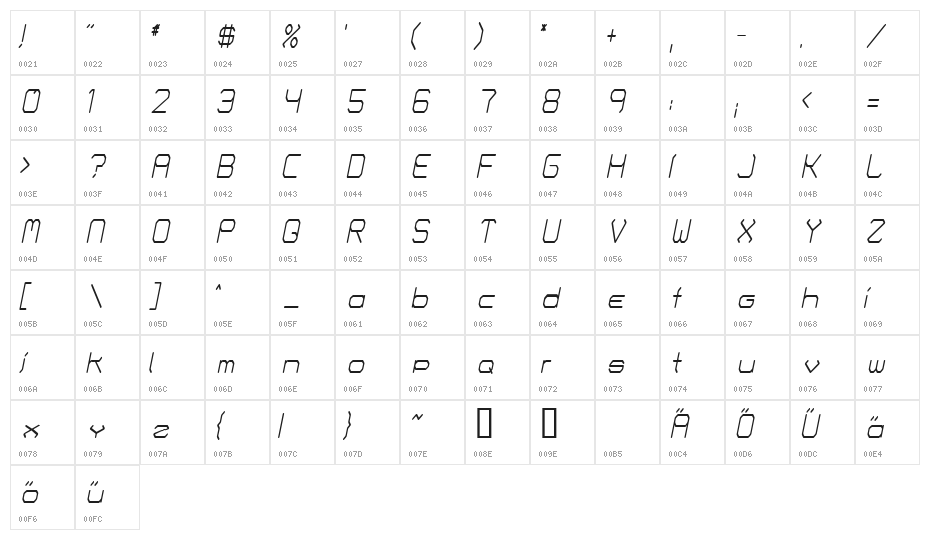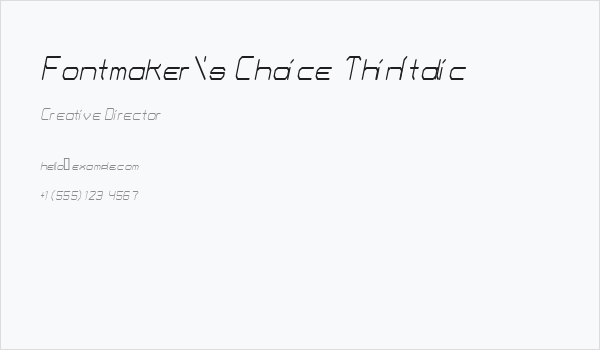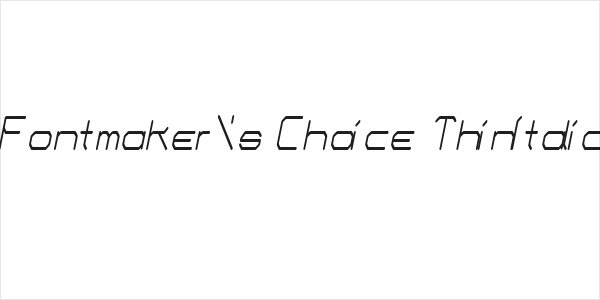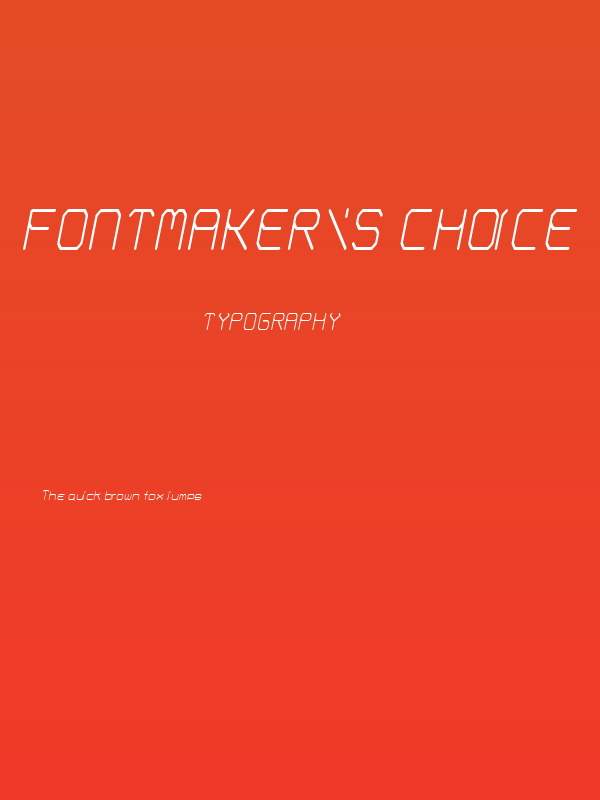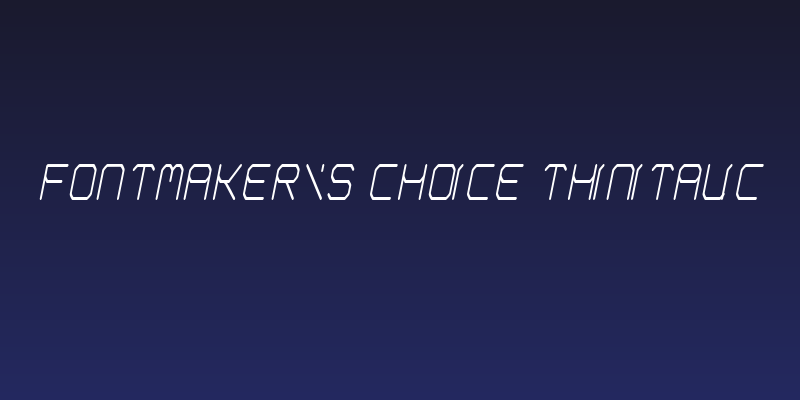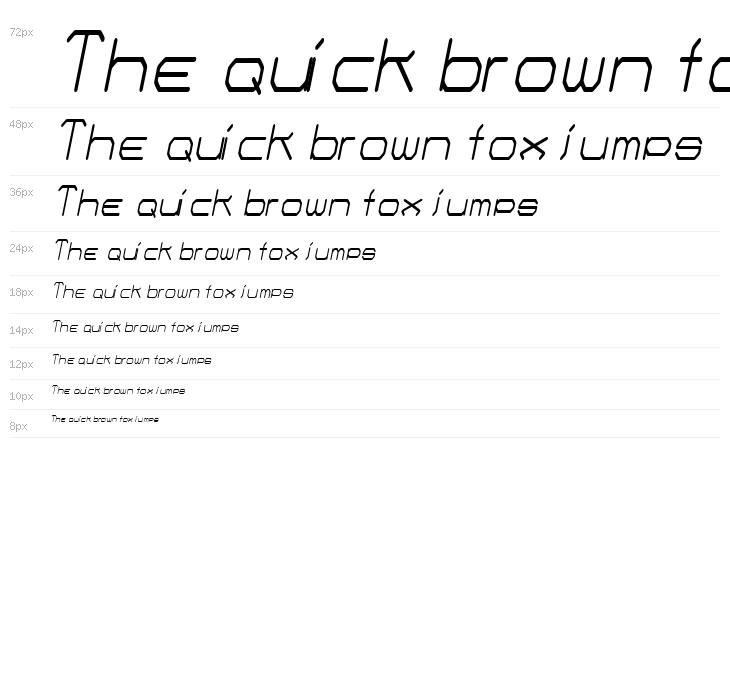
Fontmaker's Choice ThinItalic Font
Fontmaker's Choice ThinItalic Description
This font features a sleek, modern design with a thin and italicized style. The characters are slightly slanted, giving a sense of motion and elegance. The geometric shapes and clean lines create a futuristic and technical appearance. Uppercase and lowercase letters maintain a consistent style, with rounded edges and open counters that enhance readability. The numerals are distinct and align well with the overall aesthetic. Special characters are included, maintaining the same thin and angular design, making this font versatile for various applications.
| Use Case | Logos, Headlines, Tech Branding |
| Proposed Projects | Ideal for tech branding, modern advertising, and futuristic design projects. |